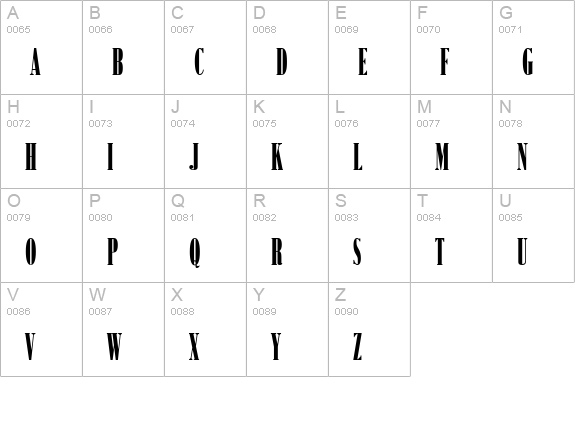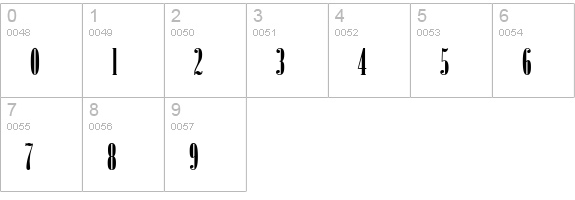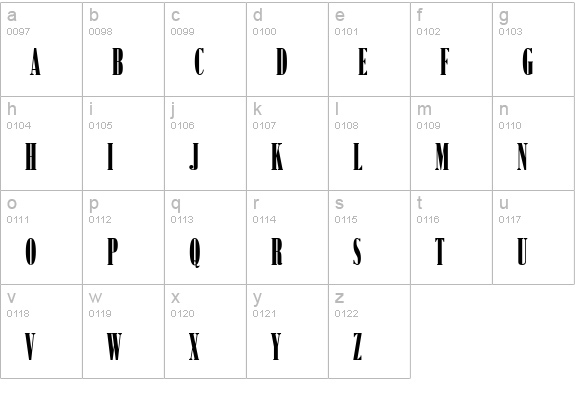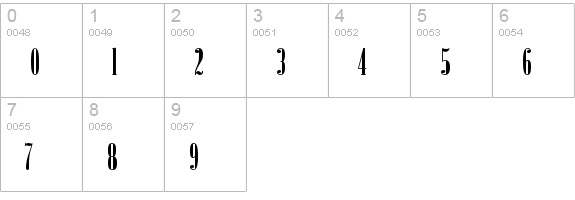
Bodoni-No2-Narrow-Ultra-Regular Font Details
Bodoni-No2-Narrow-Ultra-Regular is an extreme-weight, display, condensed-width variant in the Bodoni typeface family \xE2\x80\x94 well suited to extreme display use where maximum visual weight is required.
The Bodoni-No2-Narrow-Ultra-Regular font exudes elegance and sophistication with its sleek and slender design. Its ultra-thin strokes and refined details make it a perfect choice for projects that require a touch of modern flair. This font is not only visually striking but also offers excellent readability, making it ideal for a wide range of design applications. The best part? Bodoni-No2-Narrow-Ultra-Regular font is available for free download at FontsMarket.com. So whether you're working on a professional project or a personal creative endeavor, you can easily access this stylish font without any cost. Elevate your designs with the timeless beauty of Bodoni-No2-Narrow-Ultra-Regular and make a lasting impression on your audience.